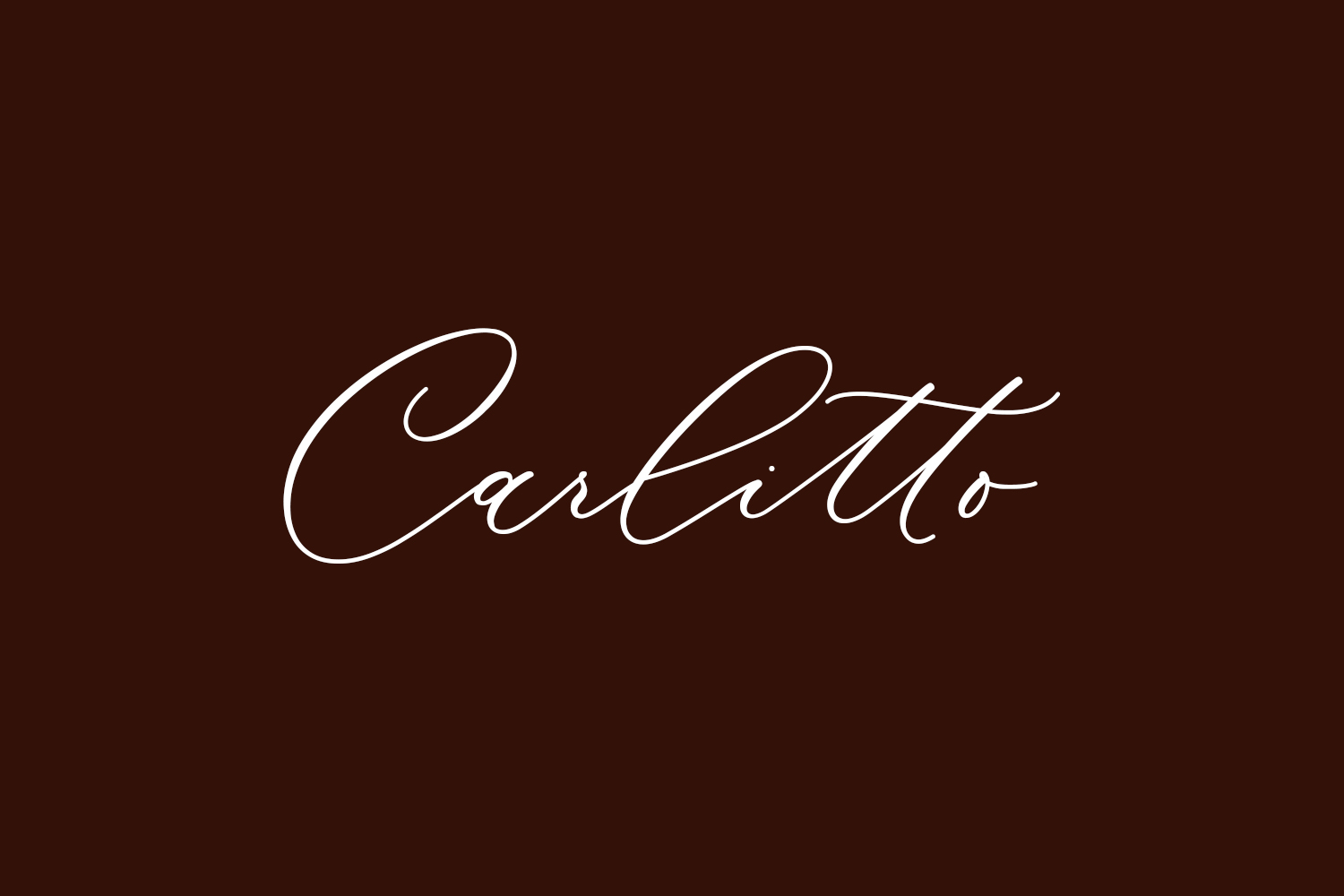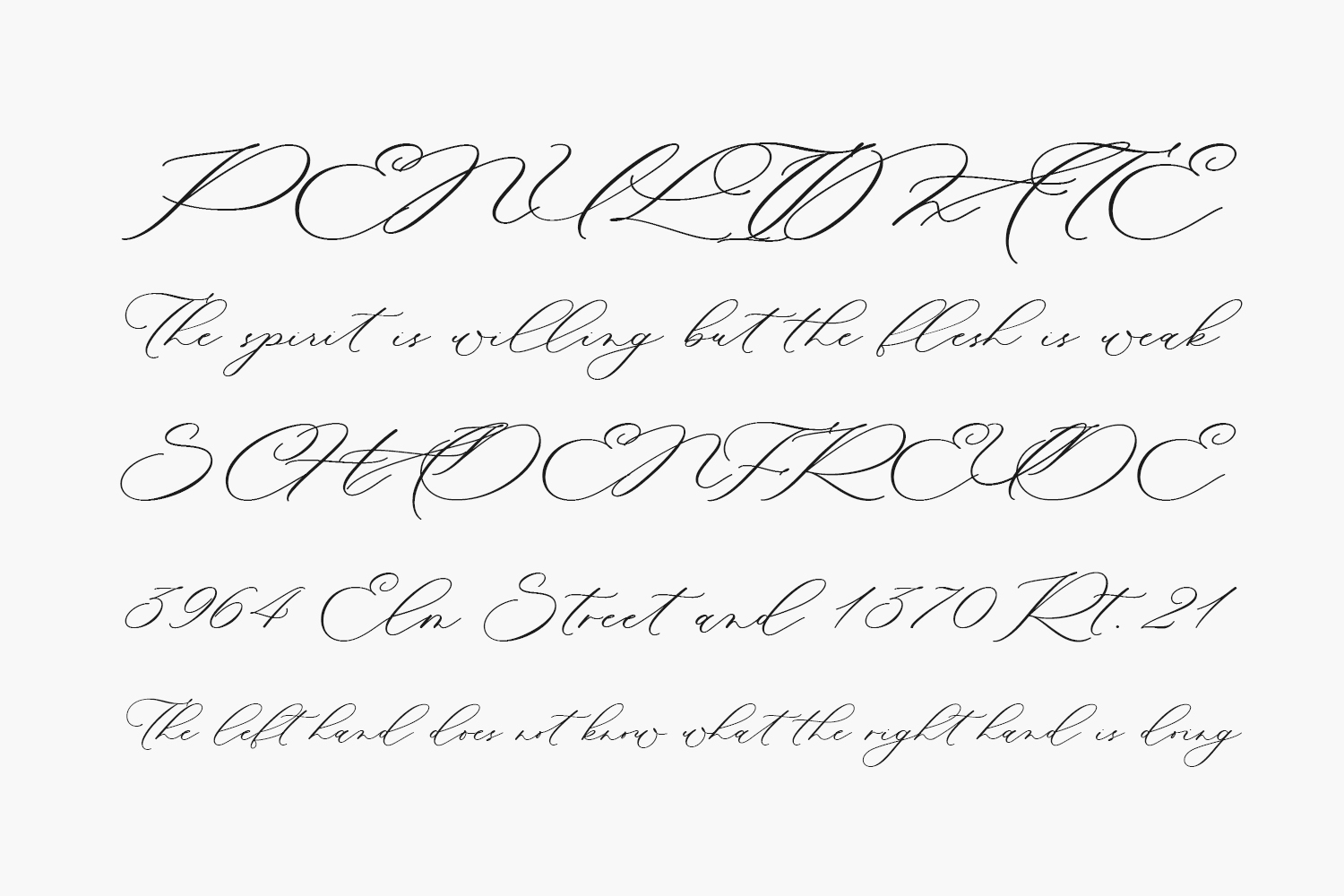
Carlitto Free Font showcases a contemporary calligraphy style, embodying a natural and artistic aesthetic. Elevate your upcoming creative projects, including watermarks on photography, quotes, album covers, logos, business cards, and various other design endeavors, with the charm of this font. Carlitto Free Font is free for personal use only. Please purchase the full version for commercial use.